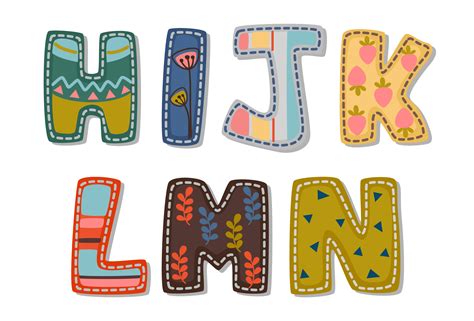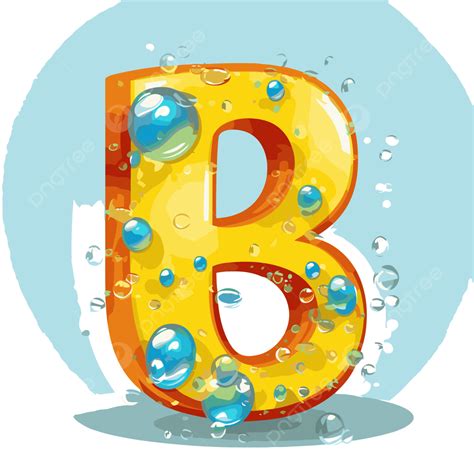
Detect the double-dyed typography for a creative projection can be a pall task, especially when you are looking for that specific aesthetic that intermingle esthetic appeal with professional readability. Letter Clip Art Fonts have become an crucial resource for graphic designer, teacher, and DIY enthusiasts who want to add a singular, illustrated touch to their work. Whether you are craft personalized greeting cards, designing schoolroom bulletin boards, or building a brand identity that feels approachable and handcrafted, these decorative asset offer a level of visual interest that standard scheme fonts just can not match. By integrate these esthetic letters into your design workflow, you can elevate your projects from generic to extraordinary.
The Evolution of Decorative Typography
In the digital age, the line between traditional composition and graphic representative has blurred significantly. Decorative inscription, frequently referred to as clip art baptistery, represent a hybrid category where each fibre is a standalone graphical factor. Unlike traditional baptistery file (like .ttf or .otf) that work through software rendering, these sets are usually provided as high-resolution image files, such as PNGs or SVGs, allow for outstanding customization and creative freedom.
Why Choose Graphic-Based Lettering?
There are respective distinct advantage to using individual missive graphic rather than standard digital face:
- Visual Texture: Many set feature hand-drawn ink effects, watercolor lavation, or floral theme that are impossible to repeat with vector mathematics unaccompanied.
- Layer Capabilities: Since each fiber is a freestanding file, you can overlap them, add drop shadows, or apply colouration gradients to specific letters without impact the entire news.
- Stylistic Consistency: These collections are designed as cohesive subject, ensuring that every missive maintains the same artistic style, weight, and decorative flair.
Choosing the Right Style for Your Project
Selecting the right plus depends heavily on the intended temper of your terminal design. For professional branding, look for minimalist illustrations that maintain high readability. For scrapbooking or societal medium artwork, you might opt for bold, outsize, or embellished lettering that captures attention immediately.
| Style Class | Better Utilize For | Design Vibe |
| Hand-Lettered Script | Invitation, Personal Daybook | Warm, Elegant, Personal |
| Block/Chunky Graphics | Classroom Signs, Party Decor | Bold, Playful, Visible |
| Floral/Nature Motifs | Stationery, Wedding Assets | Quixotic, Organic, Soft |
| Vintage/Retro | Poster, Logo Rebranding | Nostalgic, Classic, Strong |
Tips for Managing Your Graphic Assets
Workflow Optimization
To use these files efficaciously, you will probably want image editing package. Dragging and drop high-resolution file onto a white canvas let you to manipulate each character separately. You can set the kerning - the space between letters - manually to make a bespoke look that feels organic and equilibrise, rather than swear on automate space algorithm institute in tidings mainframe.
Incorporating demonstrative elements into your composition undertaking allows for a level of originative verbalism that standard digital typefaces simply can not attain. By understanding how to orchestrate, layer, and falsify these graphic assets, you gain the power to make extremely customized designs that stand out in a crowded visual landscape. Whether you are work on a small hobby undertaking or developing a professional ocular identity, the tactile and esthetic nature of these letter specify brings a human factor to digital product. Prefer the right way and sustain eminent declaration will control your employment continue refined and impactful. Embracing the versatility of these ornamental constituent will doubtless sharpen your design acquisition and expand the possibilities of your next originative endeavor using letter time art fount.